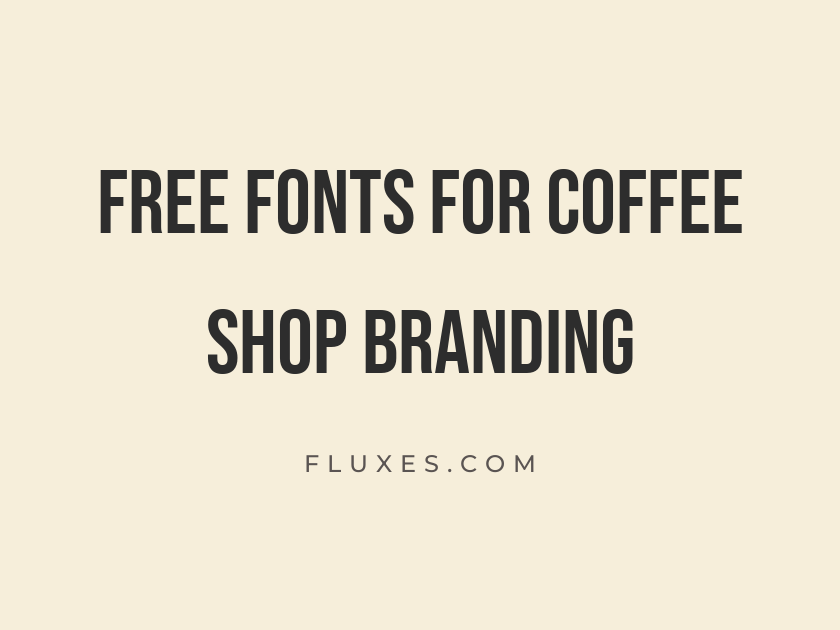
68 Best Free Fonts for Coffee Shop Branding
Coffee shop branding lives somewhere between rustic warmth and craft precision, and the right typeface carries as much of that feeling as the roast itself. A good logo font should look just as at home stamped on a burlap sack or chalked onto a sandwich board as it does printed small on a cup sleeve or a bag of beans. The best free fonts for coffee shop branding tend to cluster into a few families: loose hand-lettered scripts for warmth, bold vintage badge letterforms for roastery logos, honest slab serifs for rustic packaging, refined serifs for upscale cafes, and restrained sans-serifs for modern, minimalist branding. Every typeface here is free to download on Google Fonts and ready to drop into a logo, a menu board, or a coffee bag label.
1. Bebas Neue
Tall, condensed, and unapologetically bold, this is the default choice for roastery badge logos and cup sleeves for a reason. It compresses a lot of confidence into a small footprint, which makes it ideal for stacking above a mascot or wrapping around a circular stamp.
Because it only comes in one weight, treat it as an accent rather than a body font; pair it with something calmer for menus and descriptions.
2. Anton
Anton is heavier and blunter than Bebas Neue, built for headlines that need to shout from across a street. It works well on sidewalk sandwich boards and oversized wall lettering where subtlety is not the goal.
3. Oswald
Originally drawn as a web-friendly reworking of classic gothic condensed types, Oswald has become a workhorse for cafe menus because it stays legible even when squeezed into narrow price columns. It reads as tidy and modern without feeling cold, which suits a shop that roasts its own beans but still wants a clean, approachable look on the chalkboard.
4. Fjalla One
A quieter cousin of the condensed display genre, this one has enough personality for a logotype but enough restraint to double as a subhead on packaging.
5. Alfa Slab One
Thick, blocky, and full of vintage circus energy, Alfa Slab One is built for a single word or short phrase set very large. Think a roastery name stamped across a burlap bag or embossed on a wooden sign; at body-text sizes it turns to mud, so keep it for headlines only.
6. Bungee
Bungee borrows its swagger from street signage and stencil culture, making it a fun pick for an industrial-loft coffee bar or a cold brew can label that wants to feel a little edgy.
7. Bangers
Loud, wobbly, and comic-book bold, this is a novelty pick best reserved for a playful shop that leans into fun rather than refinement, maybe on a punch card or a sassy sidewalk sign.
8. Passion One
Rounded and friendly at heavier weights, Passion One softens the usual bluntness of condensed display type, giving it a warmer, more casual feel that suits a neighborhood coffee shop over a corporate chain.
9. Rye
Rye is pure saloon-door Americana, all thick slab serifs and decorative notches. Reach for it if your branding leans into a vintage western or old general-store theme rather than anything sleek or contemporary.
10. Ultra
An extra-bold slab with a slightly retro, ink-stamped feel, Ultra works nicely for coffee bag labels that want to look like they were pulled from a 1950s grocery shelf.
11. Fredericka the Great
This one has an inky, hand-cut quality reminiscent of old woodblock prints, which gives a coffee logo a storybook charm. It is best used sparingly, as a single accent word rather than a full sentence.
12. Bevan
A rounded slab with real weight behind it, Bevan strikes a nice balance between friendly and sturdy, which makes it a solid match for a farmhouse-style coffee shop that wants its signage to feel handmade but still readable.
13. Special Elite
Modeled after an old manual typewriter face, Special Elite brings an instant sense of nostalgia and paper-and-ink authenticity. It suits receipt-style menus, kraft paper packaging, or any branding built around the idea of a well-worn, old-school coffeehouse.
14. Sancreek
Weathered and western in feel, Sancreek carries the look of a hand-carved wooden sign, appropriate for a rustic roastery brand but too theatrical for anything minimalist.
15. Pacifico
Few free scripts feel as instantly recognizable as Pacifico, and that is both its strength and its risk; it has been used so widely in coffee and surf branding that it can read as a default rather than a discovery. Even so, its rounded, bouncy strokes genuinely do communicate a relaxed, friendly cafe vibe better than almost anything else on this list.
Use it for a logotype or a single tagline, and let a plainer typeface carry the rest of the branding so it does not compete with itself.
16. Caveat
handwritten specials, changed daily
Caveat mimics genuine ballpoint handwriting rather than calligraphy, which makes it perfect for menu specials, price tags, or anything meant to feel like it was jotted down by hand that morning.
17. Kalam
Coffee and conversation, always welcome
Slightly rounder and heavier than most casual scripts, Kalam has a marker-on-paper informality that works well for playful sticker labels or a cafe’s social-friendly branding.
18. Sacramento
Coffee that tastes like home
Delicate and thin-stroked, Sacramento leans more feminine and refined than most cafe scripts. It suits a boutique coffee shop with a pastel palette rather than a rugged roastery.
19. Dancing Script
Every cup crafted with care
Dancing Script is a dependable, well-balanced connected script that reads clearly even at smaller sizes, which is not true of every cursive font. It has become a go-to for cafe logos precisely because it flatters both a menu heading and a small packaging label without turning illegible.
20. Great Vibes
Rich espresso, velvety steamed milk
Elegant and single-stroke, Great Vibes belongs on a wedding invitation as much as a coffee shop, so use it where the brand wants to feel upscale and a little romantic, perhaps on a specialty dessert menu.
21. Satisfy
Brewed fresh, served with a smile
Loose and marker-like, Satisfy has a casual bounce that suits an easygoing neighborhood cafe. It is sturdier at small sizes than many scripts, so it holds up reasonably well on a cup sleeve.
22. Yellowtail
Latte art and lazy afternoons
Yellowtail has a retro soda-fountain sweep to it, all wide loops and confident curves, which gives it real charm on a vintage-styled coffee sign.
23. Allura
A cup of comfort, always
Thin and formal, Allura suits a high-end coffee bar or dessert cafe that wants a touch of luxury on its packaging, though its fine strokes can disappear at very small sizes.
24. Alex Brush
Where every cup tells a story
Alex Brush reads like genuine calligraphy, with real ink-flow variation between thick and thin strokes. It photographs beautifully on a chalk sign but needs generous size to stay legible.
25. Amatic SC
HAND ROASTED, HAND POURED
Skinny, hand-drawn, and slightly imperfect, Amatic SC has become something of a modern icon for indie coffee shops and craft markets. Its charm comes from looking like it was cut by hand rather than typeset, which suits chalkboard menus and kraft paper labels especially well.
It is not a font for long paragraphs; keep it to headlines, prices, and short specials where its quirky character can shine without wearing out its welcome.
• Language support: Latin, Latin Extended, Cyrillic, Hebrew, Vietnamese
26. Permanent Marker
TODAY'S SPECIAL: CARAMEL LATTE
Exactly what it sounds like, this font mimics a felt-tip marker with real conviction, making it a natural for handwritten-style specials boards or a punchy sticker on a cold brew can.
27. Shadows Into Light
Coffee break starts here
Light and airy, this handwriting style feels more like a personal note than a bold statement, useful for a friendly aside on packaging rather than a primary logo font.
28. Homemade Apple
Made fresh, just for you
Thick and a little wobbly, Homemade Apple looks genuinely handwritten with a felt pen rather than digitally drawn, which gives small-batch coffee labels an authentic, personal touch.
29. Rock Salt
Grab a mug, take a seat
Rough, uneven, and deliberately imperfect, Rock Salt suits a grungy, DIY coffee shop aesthetic more than a polished one; think a college-town espresso bar rather than a boutique roastery.
30. Gochi Hand
Beans roasted in small batches
Gochi Hand has a childlike, felt-pen simplicity that works nicely for a playful sticker or a friendly note printed on a takeout cup.
31. Indie Flower
Morning coffee, made just right
Rounded and cheerful, Indie Flower reads as approachable and casual, a good fit for a family-run coffee shop that wants to feel personable rather than polished.
32. Handlee
Roasted beans, ground fresh daily
Handlee
Handlee sits between a script and a print font, tidy enough to stay legible on a printed menu while still carrying genuine handwritten warmth.
33. Cookie
Coffee shop vibes, all day
Cookie’s fat, confident strokes give it more presence than most casual scripts, making it a solid choice for a cafe logotype that wants friendliness without looking flimsy.
34. Parisienne
Bold blends for early risers
Elegant and softly rounded, Parisienne carries a Parisian cafe sensibility that suits a coffee shop leaning into a European bistro aesthetic.
35. Grand Hotel
Steamy mugs and quiet corners
With its slightly retro, vintage-postcard curves, Grand Hotel flatters a coffee brand that wants to feel nostalgic and a touch glamorous, especially paired with muted, dusty color palettes.
36. Playfair Display
Farm to cup, seed to sip
Playfair Display brings high-contrast, editorial elegance to coffee branding, the kind of typeface that suggests a shop takes its sourcing and craft seriously. Its dramatic thick-thin strokes give a wordmark real presence on a storefront sign or a specialty coffee bag.
It pairs naturally with a clean sans-serif for body copy, since its personality is strongest reserved for headlines and logotypes rather than paragraphs of ingredient text.
37. Cormorant Garamond
Single origin beans, house roasted
Cormorant Garamond is delicate, refined, and unmistakably literary, better suited to a quiet specialty coffee bar with a minimalist interior than a bustling drive-through. Its fine hairlines demand generous sizing, so save it for headers rather than fine print.
38. EB Garamond
Coffee beans sourced from Ethiopia
A faithful digital revival of a classic old-style serif, EB Garamond feels scholarly and understated, a good match for a coffee brand built around provenance and origin stories rather than flash.
39. Libre Baskerville
Sourced direct from the farmer
Sturdy and highly legible even at small sizes, Libre Baskerville was actually optimized for on-screen reading, making it a smart pick for a coffee shop’s website body text or an ingredient list on packaging.
40. Lora
Pour over coffee, slow and steady
Lora has gentle, brushed curves that feel warm rather than formal, a comfortable serif for menu descriptions or an about-us paragraph on a cafe’s packaging.
41. Merriweather
Your daily dose of caffeine joy
Built specifically for readability on screens, Merriweather is a dependable choice for a coffee shop’s website copy, sturdy enough to hold up in long paragraphs without feeling stiff.
42. Prata
Craft coffee, honest ingredients
Prata has a formal, almost ceremonial elegance, better suited to a high-end espresso bar or a coffee brand positioning itself as a luxury product than a casual corner shop.
43. Marcellus
Espresso bar open every morning
Understated and evenly weighted, Marcellus reads as calm and confident rather than decorative, a good fit for minimalist packaging that wants a serif without much drama.
44. Cardo
The daily grind, done right
Cardo carries an old-book quality, dense and slightly bookish, which suits a coffee shop built around a reading-room or literary theme.
• Language support: Latin, Latin Extended, Gothic, Greek, Greek Extended, Hebrew, Old Italic, Runic
45. Vollkorn
From bean to cup, always fresh
Sturdy and a little rustic, Vollkorn was designed for German book printing, and that heritage shows in its solid, no-nonsense letterforms, useful for a farmhouse or rustic-leaning coffee brand.
46. Poppins
Coffee crafted to order
Geometric and friendly, Poppins has become ubiquitous in modern branding for good reason: its perfectly round bowls and even strokes give a coffee logo a clean, contemporary feel without going cold.
47. Montserrat
Fuel your day, one cup at a time
Inspired by old Buenos Aires street signage, Montserrat carries an urban, geometric confidence that suits a modern espresso bar or specialty roastery going for a sleek, minimalist look.
48. Raleway
Chalkboard specials change daily
Raleway’s thin, elegant proportions work best at display sizes, where its subtle single-story a and refined spacing give a coffee brand a boutique, design-forward edge.
49. Work Sans
Drip coffee brewed all day
Optimized for readability at small sizes, Work Sans is a reliable, low-drama choice for menu boards and website text where clarity matters more than flourish.
50. Nunito
A warm cup, a warm welcome
Nunito’s rounded terminals give it a soft, approachable feel, nice for a family cafe or kid-friendly coffee shop that wants its branding to feel gentle rather than sharp.
51. Karla
Cappuccino foam, perfectly steamed
Slightly quirky in its details but restrained overall, Karla works well as a body font for menus, comfortable to read without feeling generic.
52. Quicksand
Sit down, slow down, sip
Built from simple geometric shapes with rounded corners, Quicksand feels light and casual, suited to a bright, airy coffee shop rather than a moody industrial one.
53. Josefin Sans
Coffee, community, and a good book
Thin, art-deco-influenced, and a little retro, Josefin Sans lends a vintage-modern feel that flatters minimalist packaging or a boutique coffee brand’s website headers.
54. Jost
Taste the difference, fresh roasted
Jost channels the geometric purity of early twentieth-century German sans-serifs, giving coffee branding a clean, architectural feel without borrowing directly from any paid typeface.
55. DM Sans
Espresso shots pulled to order
Neutral and highly legible, DM Sans is built for interfaces and works just as well on a coffee shop’s app menu or website as it does on printed signage.
56. Outfit
Our beans, your morning boost
Outfit is a newer geometric sans with tight, confident letterforms, a solid pick for a coffee brand aiming for a crisp, contemporary identity across packaging and digital menus alike.
57. Cabin
Coffee served with genuine warmth
Humanist and a touch rounded, Cabin softens the usual rigidity of grotesque sans-serifs, making it a comfortable choice for a coffee shop that wants modern branding without feeling corporate.
58. Roboto Slab
Stop in for your daily brew
A dependable slab serif with even, blocky proportions, Roboto Slab suits a coffee shop menu that wants a rustic feel while staying perfectly readable across print and web.
59. Josefin Slab
Beans roasted fresh every Monday
Josefin Slab
Sharing its thin, elegant bones with Josefin Sans, this slab variant adds just enough weight for a retro-industrial coffee label without sacrificing its vintage charm.
60. Bitter
Where coffee meets community
Bitter was designed specifically for comfortable reading on screens, so it earns its keep as a body font for a coffee shop’s blog or ingredient descriptions rather than as a display face.
61. Arvo
Bold blends, honest ingredients
Geometric and sturdy, Arvo has a typewriter-adjacent feel at heavier weights, useful for a coffee shop leaning into an industrial, warehouse-style aesthetic.
62. Zilla Slab
Rustic roastery, honest roast
Zilla Slab has slightly quirky, characterful letterforms that keep it from feeling generic, a good match for an independent coffee shop that wants personality in its packaging text.
63. Aleo
Every bean tells a story
Aleo
Aleo pairs geometric structure with rounded, friendly curves, landing somewhere between formal and casual, a flexible workhorse for menus that mix headlines and descriptions.
64. Rokkitt
Slow roasted, fast loved
Rokkitt
Rokkitt’s heavier slabs and generous curves give it a confident, tactile feel, good for a coffee bag label that wants to look sturdy and substantial on the shelf.
65. Crete Round
Coffee and pastries, baked fresh
Crete Round
Soft-cornered and friendly, Crete Round takes the edge off the usual slab-serif heaviness, suiting a cozy neighborhood cafe over a stark industrial one.
66. Space Mono
Coffee beans, roasted with passion
Space Mono’s fixed-width, typewriter-inspired letters give coffee packaging a technical, laboratory feel, well suited to a specialty roastery that wants to highlight brewing data or origin details on the label.
67. Courier Prime
Receipt roasted, freshly printed
Courier Prime
Modeled closely on classic typewriter faces, Courier Prime is perfect for a receipt-style menu or a stamped, utilitarian look on takeout bags.
68. IBM Plex Mono
Brewing happiness, one cup at a time
More refined than a typical monospace, IBM Plex Mono brings a quiet technical precision that works nicely as an accent on modern, minimalist coffee packaging, particularly alongside a clean geometric sans.
Pairing free fonts for a coffee shop brand
A dependable formula is one bold display or script font for the logotype, paired with a plain, highly legible sans-serif or serif for menus and packaging text.
Avoid combining two decorative scripts or two heavy display faces in the same layout; let one typeface carry the personality and the other carry the reading.
For a vintage roastery look, try a slab serif logotype with a simple sans-serif body font. For a boutique, minimalist cafe, pair a refined serif headline with a clean geometric sans for everything else.
With this many free, genuinely well-made options on Google Fonts, there is no need to reach for a paid typeface to give a coffee shop real character. Download a few contenders, set them against an actual logo mockup or cup sleeve, and let the roast, the space, and the community you are serving guide the final choice.